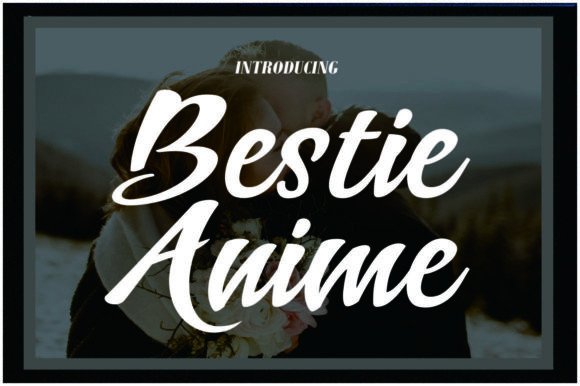
Discover the Charm of Bestie Anime Font: A Soft and Sweet Calligraphy Typeface
The world of typography is vast and diverse, offering a multitude of font styles to suit various design needs. Among these, the Bestie Anime font stands out for its unique blend of softness, sweetness, and elegance. This calligraphy typeface is not just a font; it’s an expression of creativity and emotion, making it perfect for a wide range of design projects. In this article, we’ll delve into the characteristics of the Bestie Anime font, its uses, and why it has become a favorite among designers.
The Essence of Bestie Anime Font
Bestie Anime is described as a soft and sweet calligraphy typeface, with characters that dance along the baseline. This dynamic movement gives the font a casual yet elegant touch, making it versatile for various design applications. The font’s design ensures that it remains legible while conveying a sense of warmth and friendliness, which is hard to achieve with more traditional typefaces.
Key Features of Bestie Anime Font
- Soft and Sweet Calligraphy: The font’s calligraphy style is gentle and pleasing to the eye, making it perfect for projects that require a touch of elegance and warmth.
- Characters that Dance Along the Baseline: This feature gives the font its unique, dynamic feel, setting it apart from more static typefaces.
- Casual and Elegant Touch: The balance of casualness and elegance makes Bestie Anime suitable for both informal and formal design projects.
Uses of Bestie Anime Font
The versatility of Bestie Anime font is one of its most appealing qualities. Its soft, sweet, and elegant nature makes it suitable for a variety of design projects, including:
Design Projects Where Bestie Anime Shines
- Logos: For businesses or brands looking to establish a friendly and approachable image, Bestie Anime can be a great choice.
- Wedding Invitations: The font’s elegance and softness make it perfect for wedding invitations, adding a romantic and personal touch.
- Headings: Bestie Anime can add a unique flair to headings in magazines, blogs, and websites, making them stand out.
- T-Shirts: The font’s casual yet stylish nature makes it suitable for t-shirt designs, especially for quotes, sayings, or branding.
- Labels and Posters: For any project that requires a touch of elegance and friendliness, such as product labels or promotional posters.
- Badges: Whether for events, products, or profiles, Bestie Anime can add a personalized and appealing look to badges.
Why Designers Love Bestie Anime Font
Designers often seek fonts that can convey the right mood or emotion for their projects. Bestie Anime font, with its soft and sweet calligraphy, has become a favorite for several reasons:
From a Designer’s Point of View
- Emotional Connection: The font helps create an emotional connection with the audience, making designs more relatable and engaging.
- Versatility: Its suitability for a wide range of projects, from logos to wedding invitations, makes it a valuable addition to any designer’s font library.
- Ease of Use: Despite its elegant look, Bestie Anime is easy to use and can be incorporated into designs without requiring extensive typography knowledge.
- Uniqueness: In a sea of traditional fonts, Bestie Anime offers a unique style that can help designs stand out.
How to Use Bestie Anime Font Effectively
To make the most of Bestie Anime font, consider the following tips:
Tips for Effective Use
- Pair with Complementary Fonts: When using Bestie Anime for headings, pair it with a clean, sans-serif font for body text to maintain readability and visual appeal.
- Adjust Size and Color: Experiment with different sizes and colors to ensure the font complements your design without overpowering it.
- Consider the Audience: Ensure that the soft and sweet nature of the font aligns with the message and audience of your project.
Bestie Anime font is a beautiful, soft, and sweet calligraphy typeface that brings a casual yet elegant touch to any design project. Its versatility, emotional appeal, and ease of use make it a valuable tool for designers looking to create engaging and unique designs. Whether you’re working on a logo, wedding invitation, or any other project, Bestie Anime font is sure to add a special touch that sets your design apart.
Embrace the Elegance of Bestie Anime Font
Incorporate Bestie Anime into your design projects and discover how this charming font can elevate your work. With its dancing characters and elegant style, it’s not just a fontβit’s a way to bring warmth, friendliness, and elegance to your designs.